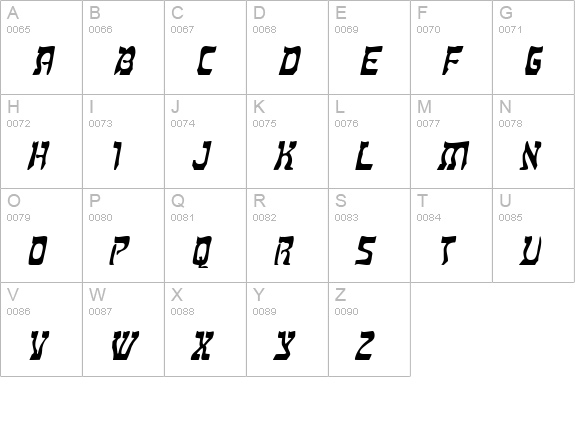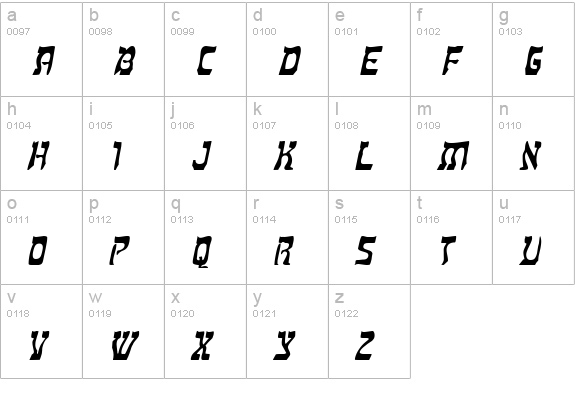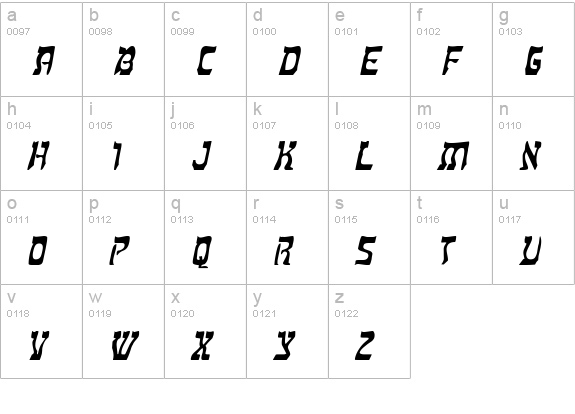
Kosher Wide Italic is a distinctive, extended-width, italic variant in the Kosher typeface family \xE2\x80\x94 well suited to design and typography projects.
Introducing Kosher Wide Italic font, a sleek and modern typeface designed for a wide range of creative projects. Its elegant italic design adds a touch of sophistication to any text, making it perfect for branding, advertising, and editorial purposes. The wide spacing of the characters gives it a unique and eye-catching appearance, ensuring that your message stands out. This font is not only visually appealing but also carries the significant distinction of being kosher-certified, making it suitable for use in Jewish-themed designs and projects. Whether you are creating invitations, menus, or any other materials within the Jewish community, Kosher Wide Italic font is a perfect choice to convey a sense of tradition and authenticity. Best of all, Kosher Wide Italic font is available for free download at FontsMarket.com, allowing you to easily access and incorporate this elegant typeface into your designs without any cost. Enhance your projects with the timeless beauty and versatility of Kosher Wide Italic font today.